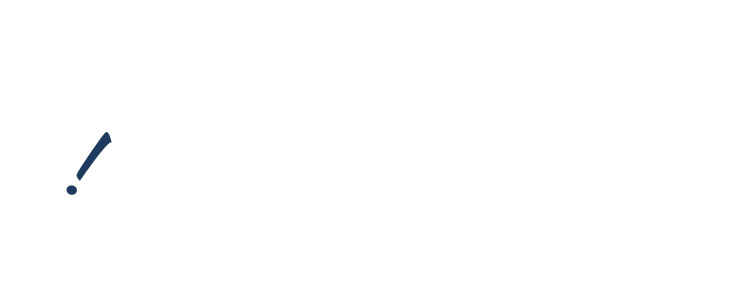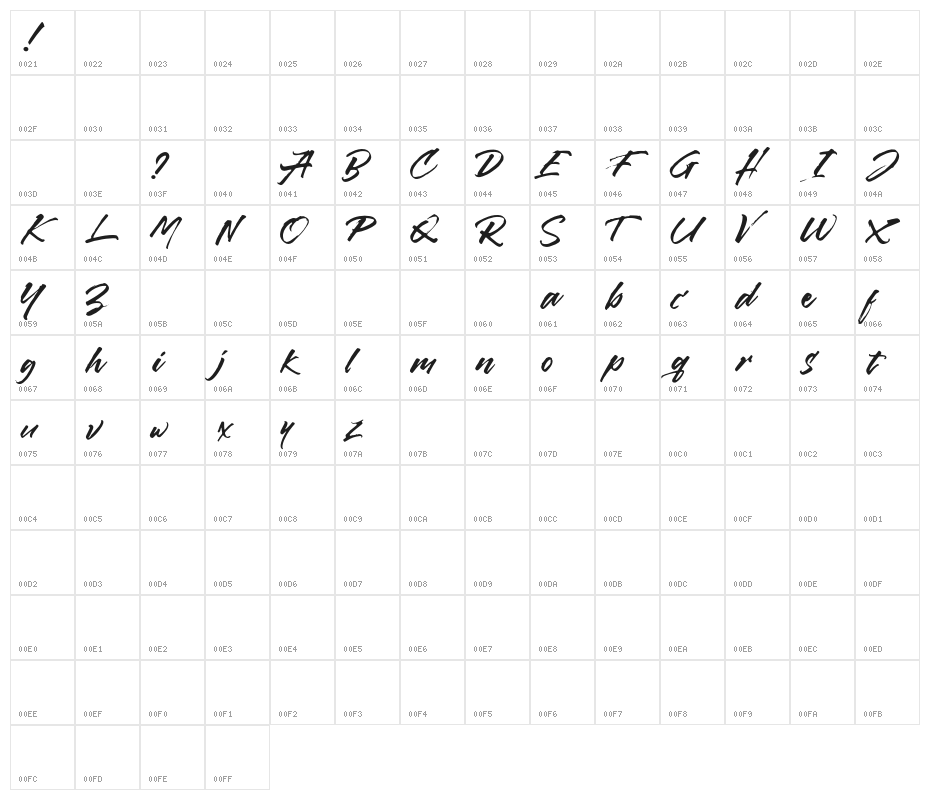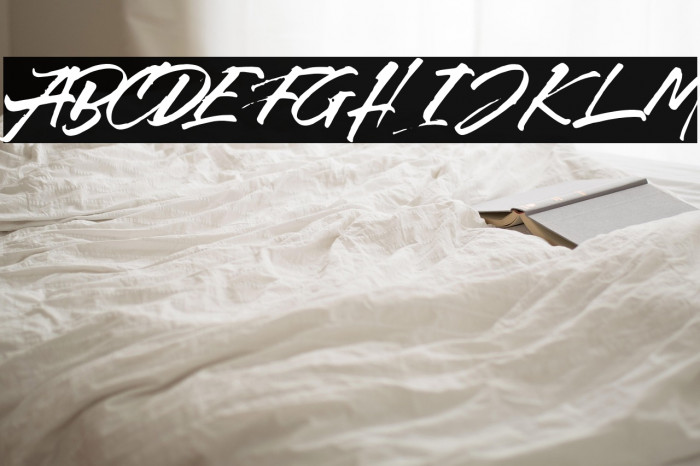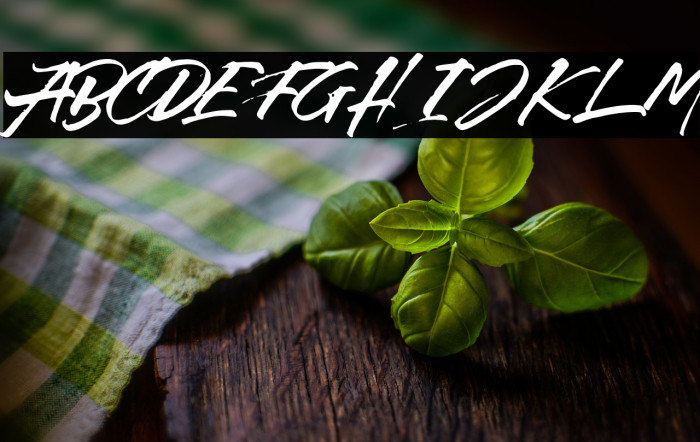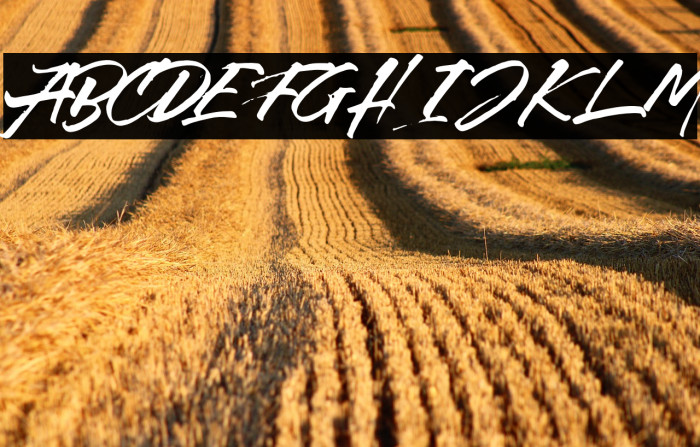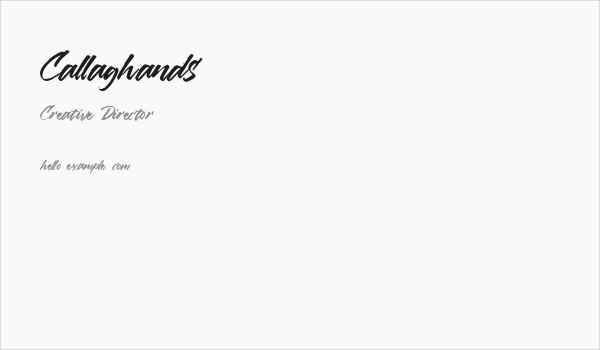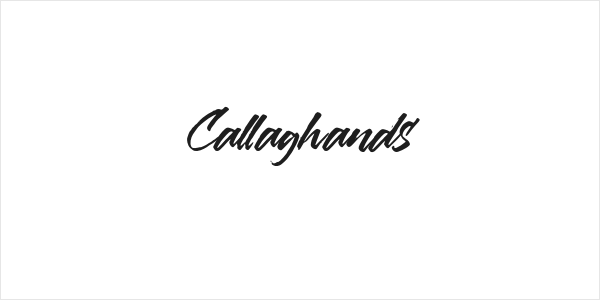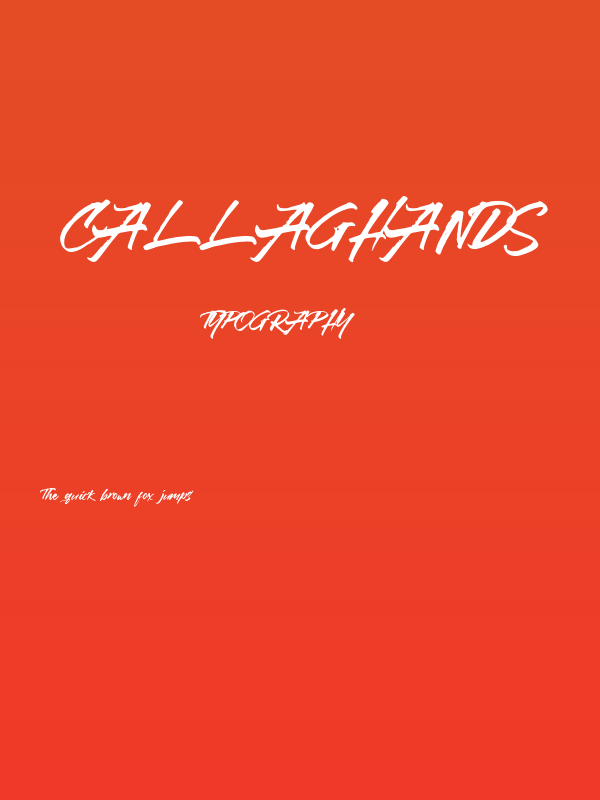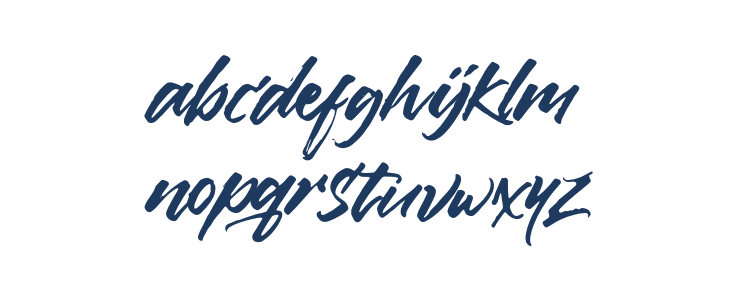
Callaghands Font
Callaghands Description
This font exudes a dynamic and energetic style, characterized by its bold, sweeping strokes and fluid, cursive script. The letters are crafted with a sense of motion, giving the impression of a handwritten note penned with a brush or marker. The uppercase and lowercase letters maintain a consistent flow, with some letters featuring dramatic flourishes that enhance its artistic appeal. The font's overall appearance is both modern and expressive, making it suitable for projects that require a personal touch or a bold statement. Its unique style captures attention and conveys a sense of creativity and individuality.